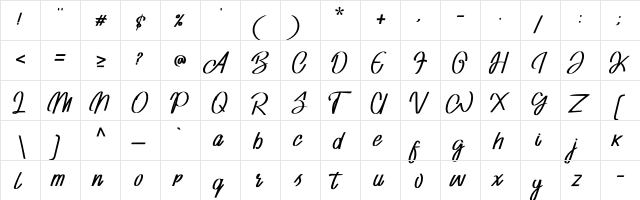
Adventure Invisible Regular
Design Context for Adventure Invisible Typeface
Adventure Invisible is a composed and adaptable typeface that performs quietly and consistently across a wide range of design contexts.
Pro Tip: Use Adventure Invisible in both headline and body roles to test its range before committing to a single application.